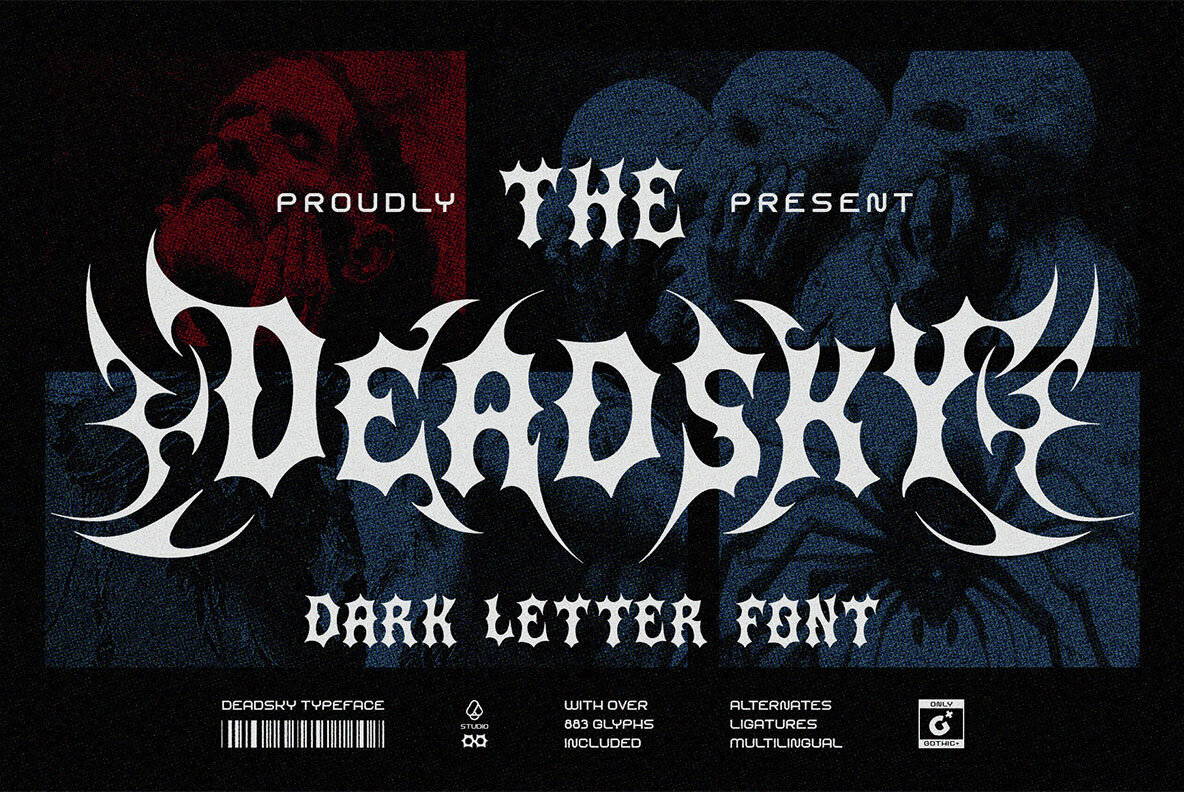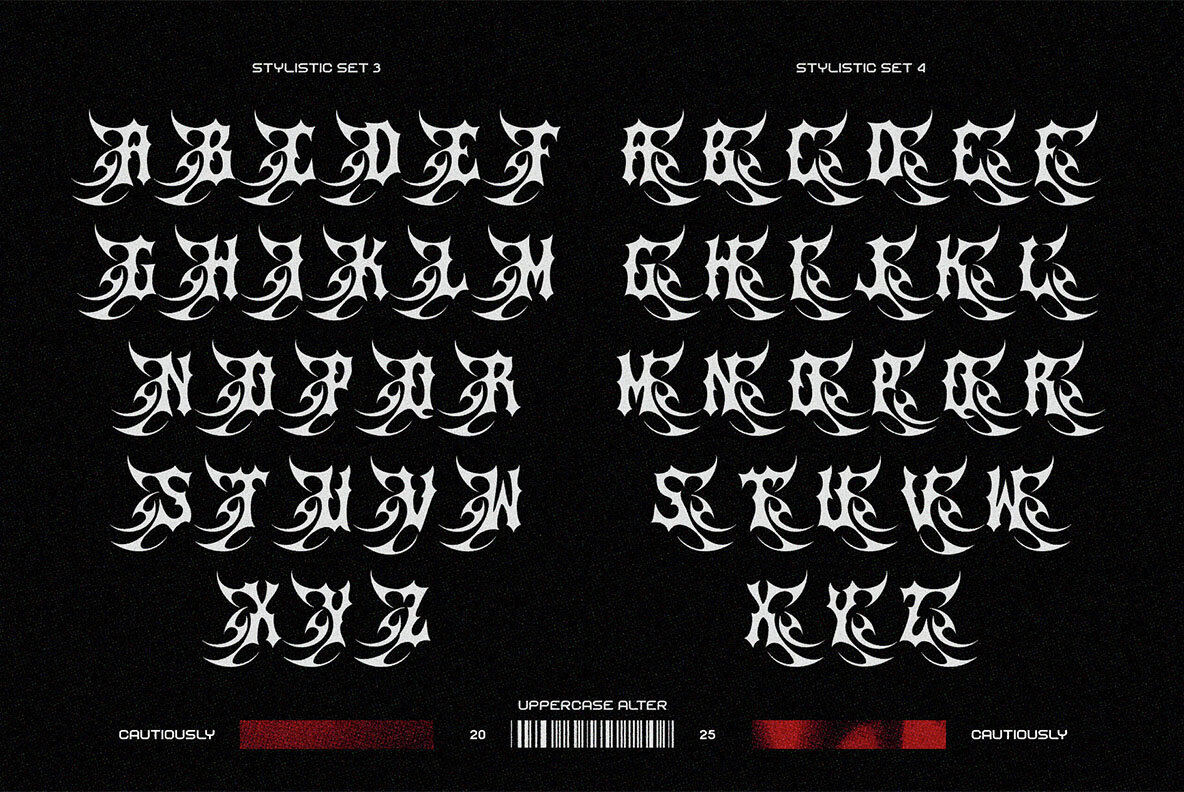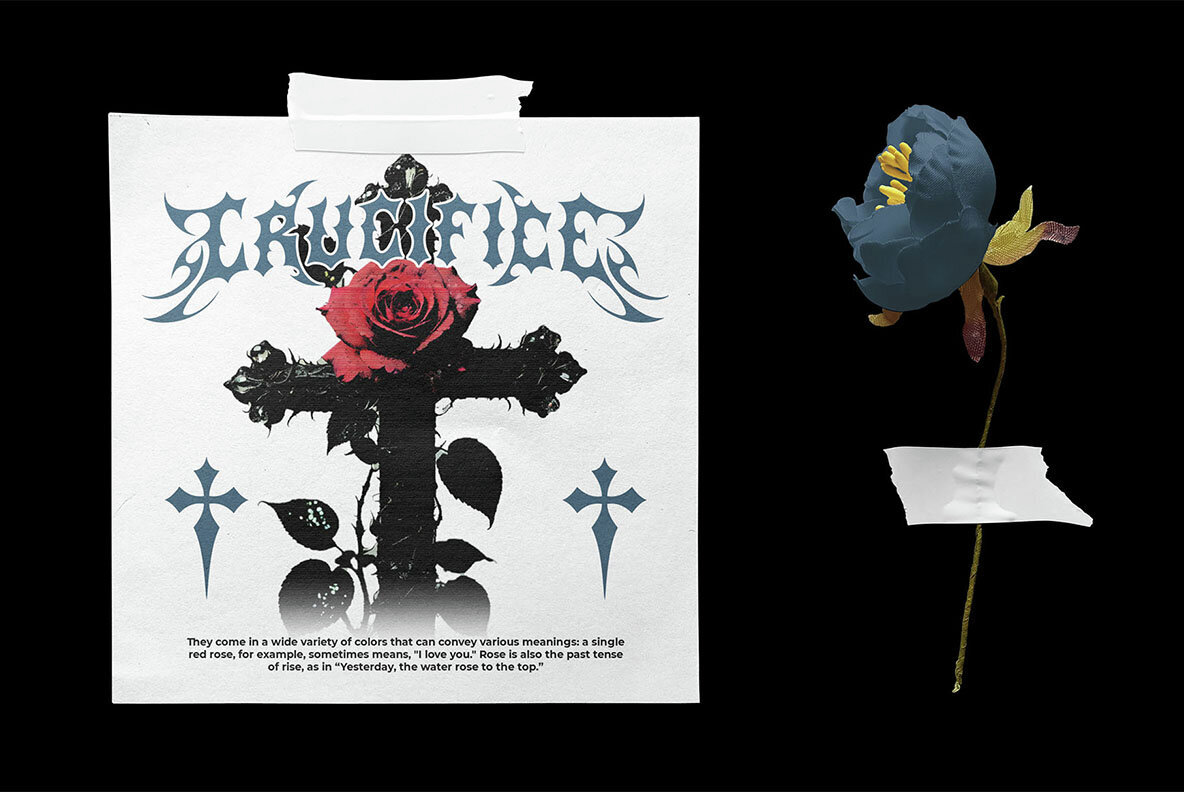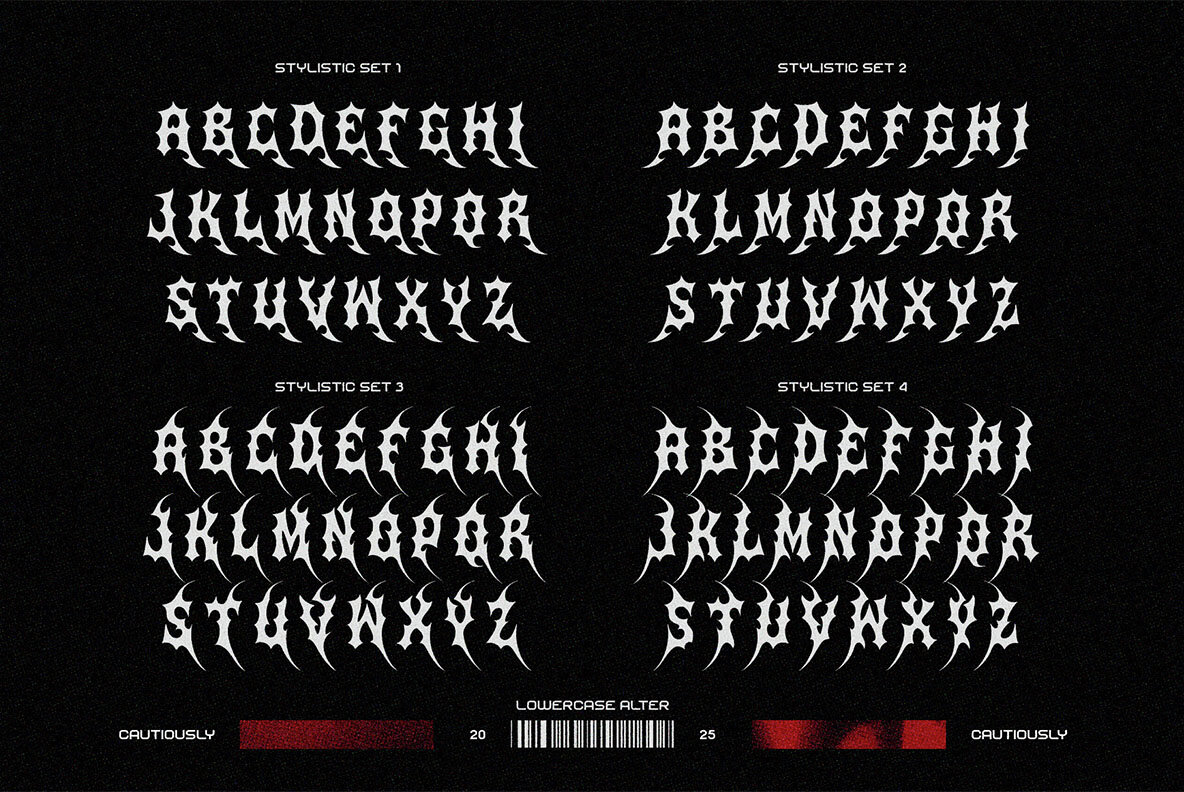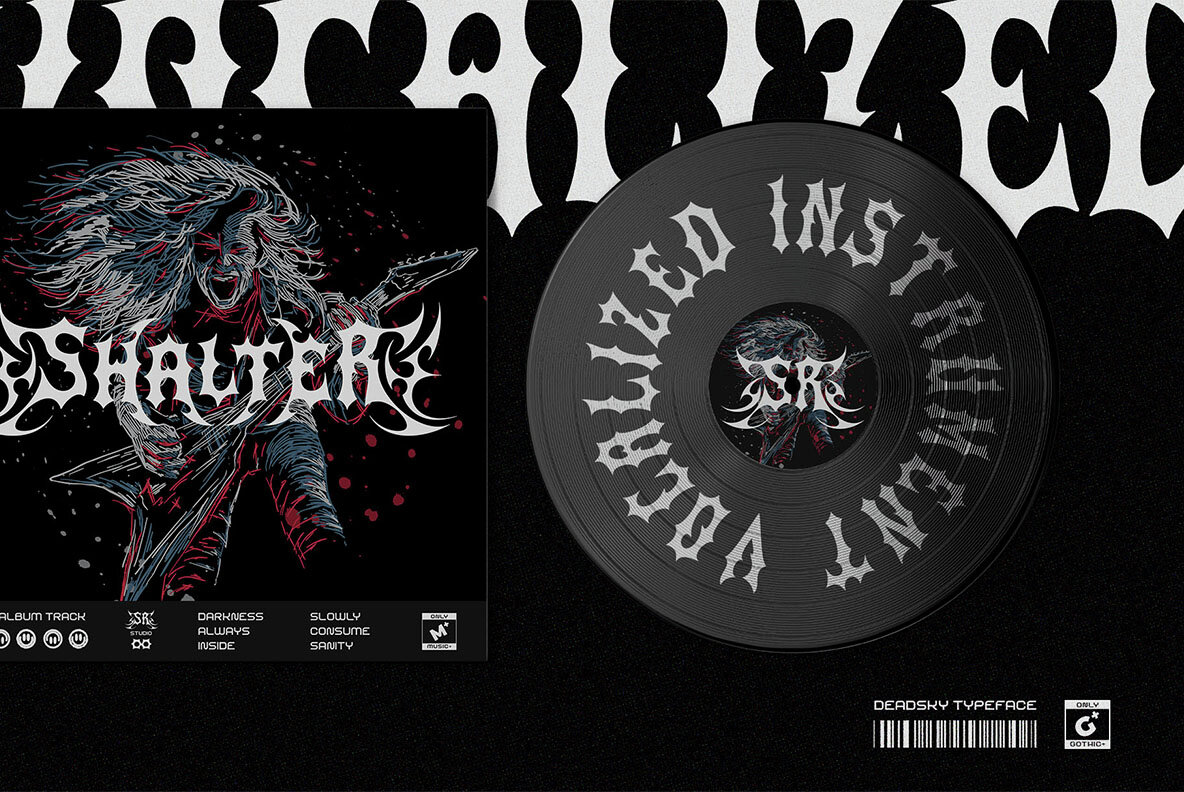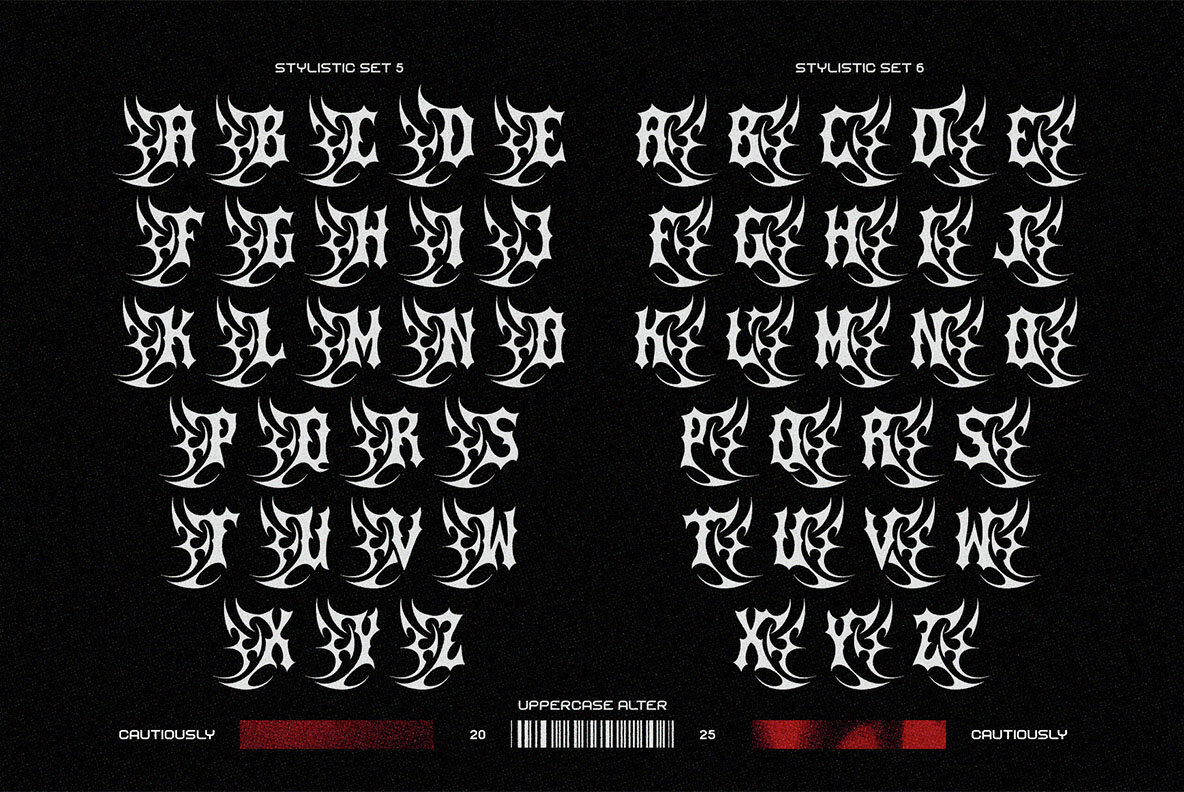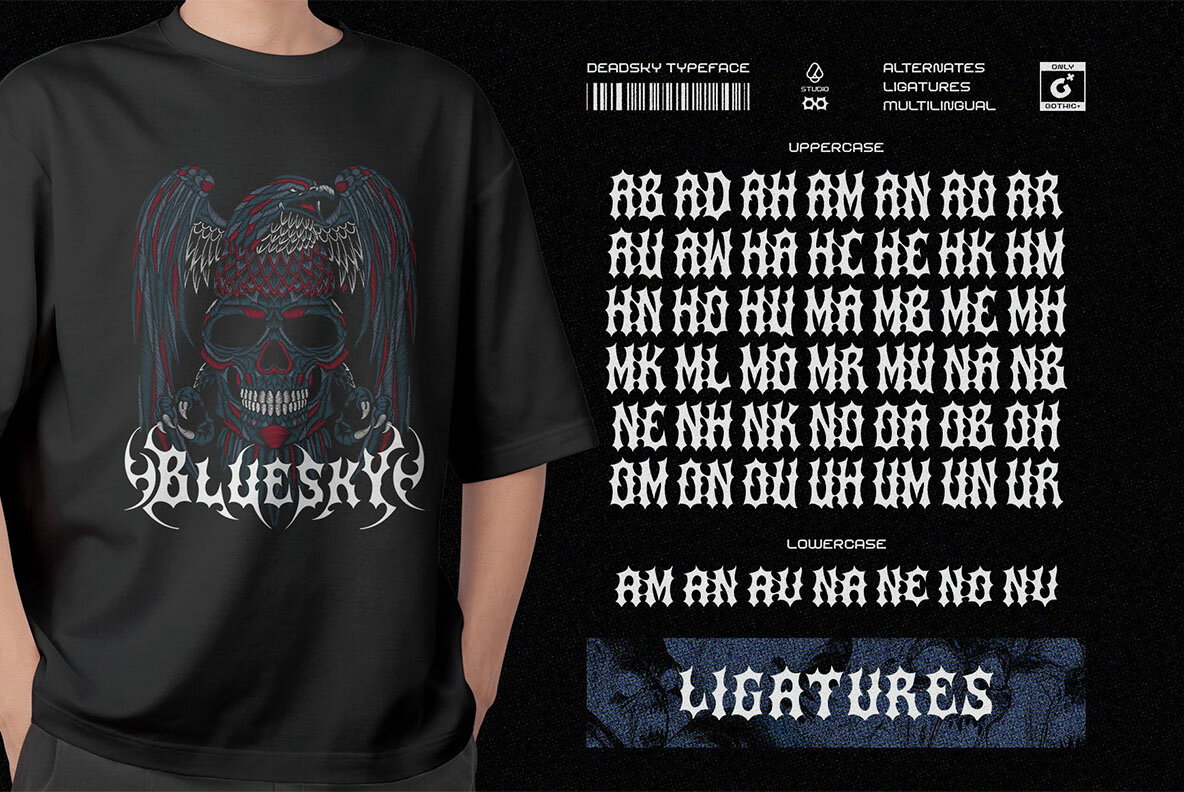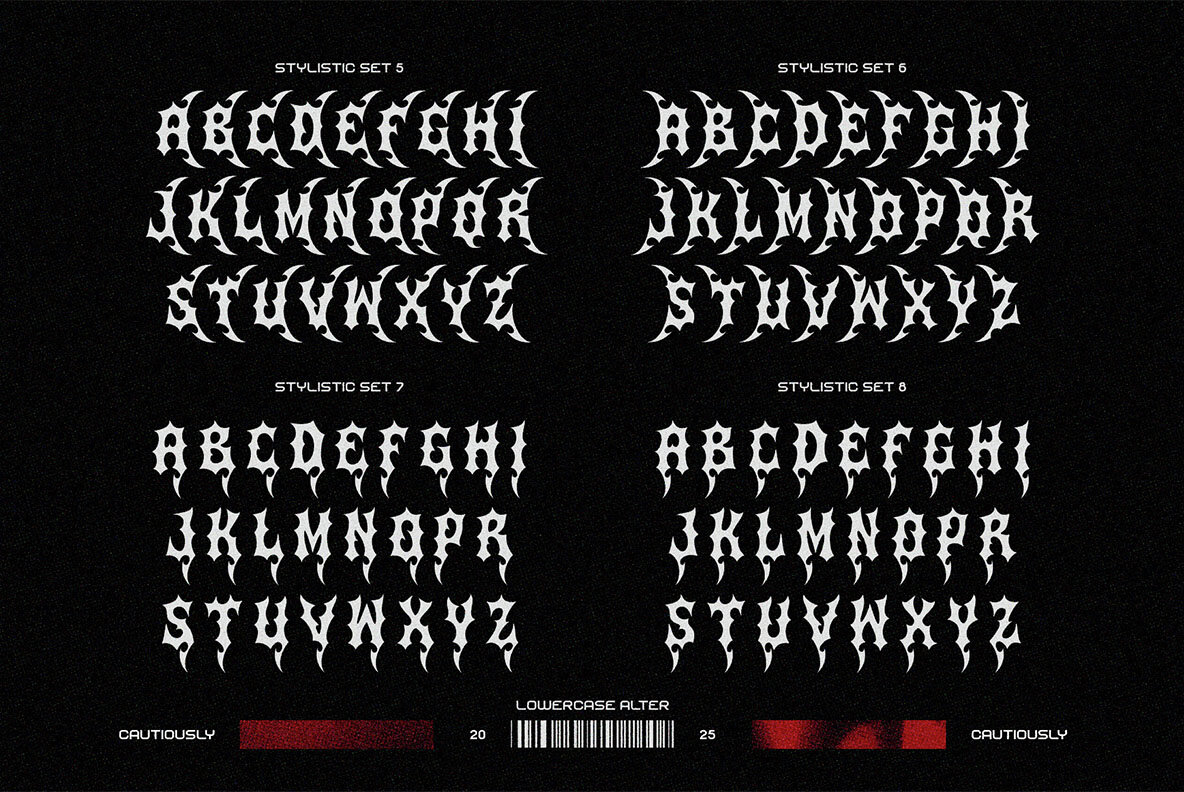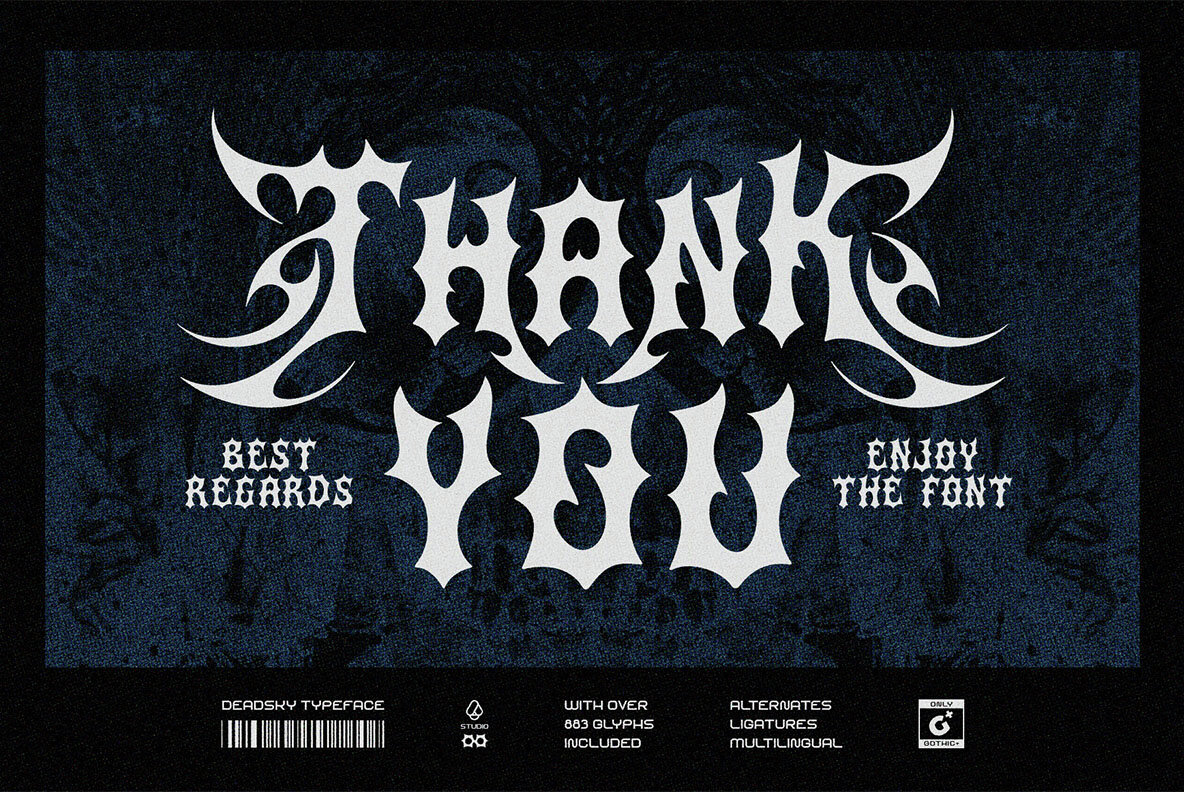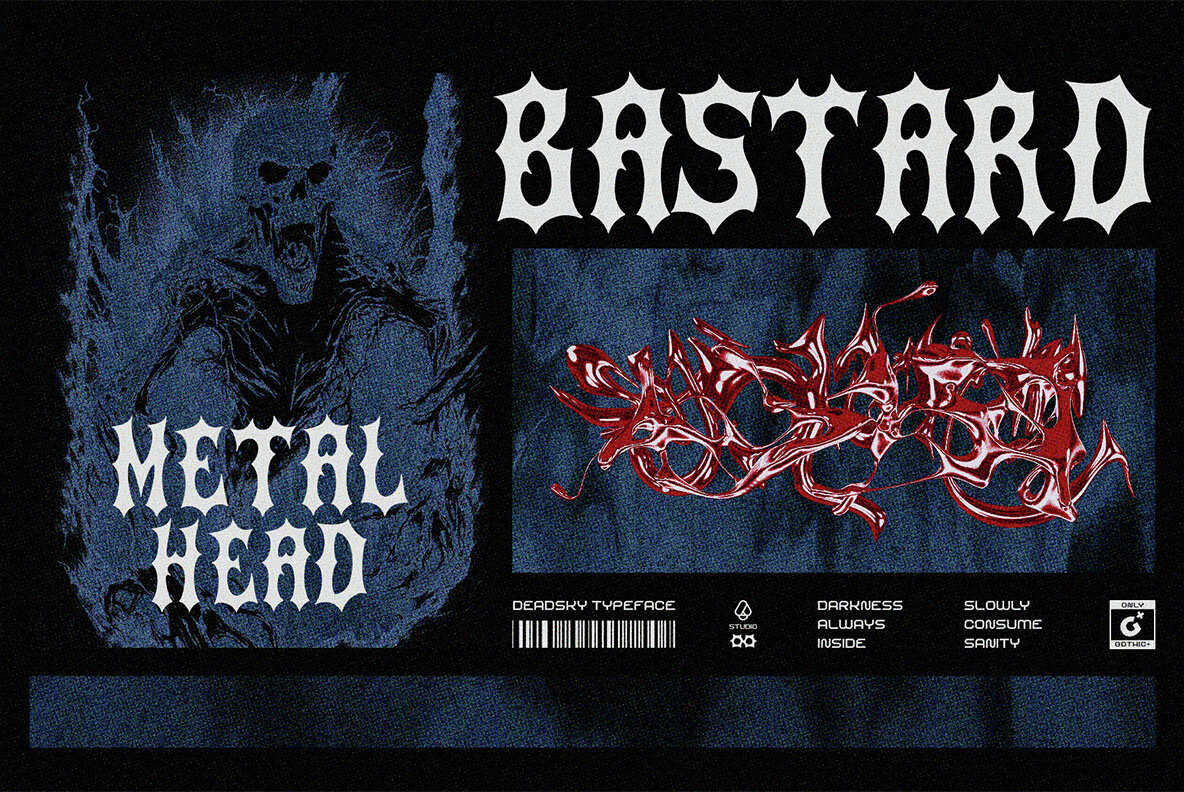
Deadsky Font
Deadsky Regular
Experience the edgy allure of Dead Sky, a striking darkletter typeface that fuses punk energy with tribal artistry. This font, marked by sharp, thorn-like features and dynamic swashes, embodies rebellious spirit and guarantees to make your work stand out. Ideal for applications in music, fashion, branding, and art, Dead Sky offers a bold, high-impact aesthetic. Embrace the attitude that Dead Sky Darkletter Typeface brings to each project. With its bold, defiant strokes, this typeface not only crafts a message but ensures it resonates powerfully. Dare to push creative boundaries and let your voice be heard with Dead Sky.Dead Sky Darkletter Typeface: Bold Meets Tribal